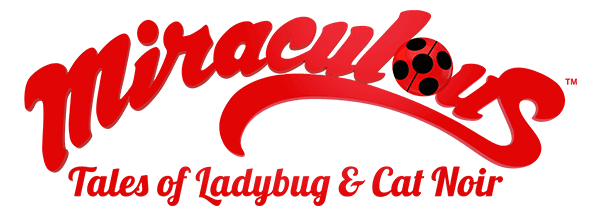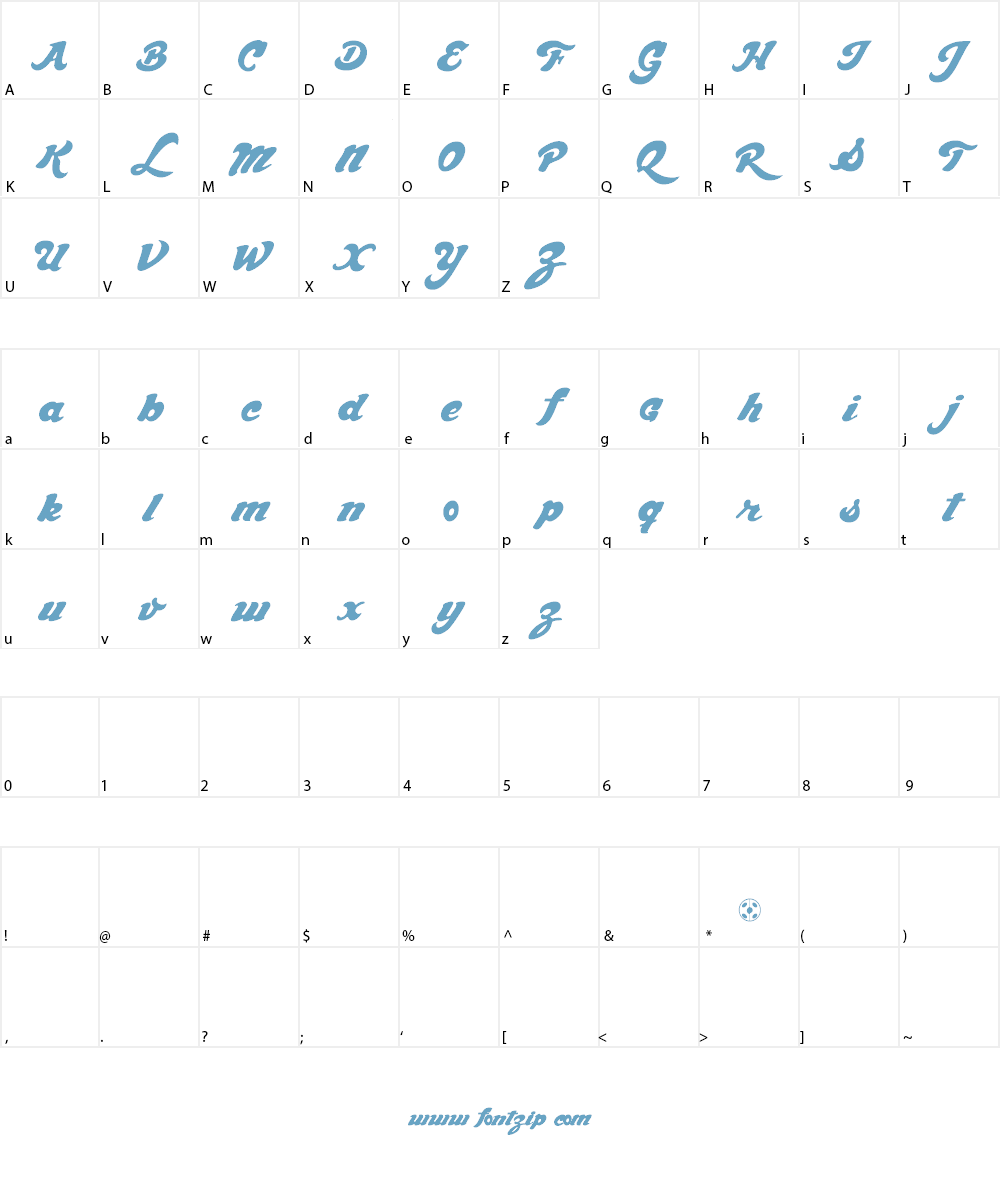
In which the first one is chocolate dealer font that used in miraculous. Kr ladybug true type font i used the above font for a ladybug lemonade label.
The text “tales of ladybug & cat noir” in the poster uses the font lobster, a lovely condensed script font designed by pablo impallari, and the “miraculous” part of the logo seems to be chocolate dealer by billy argel.
Miraculous ladybug font type. In this way, if you have some future. Complete family of 6 fonts: Lms london bugs true type font.
Download (zip 18.1 kb) add to favourites report this font. And it actually matches what kagami said in the episode. There are basically two fonts are used for the logo of ladybug.
Tales of ladybug cat noir french. Lady bug luv true type font. The beautiful textual style is comparable with numerous different textual styles.
The other ladybug on there are the ladybug dings true type font (captial n). The miraculous seems to be a font as well although i think its probably. There are basically two fonts are used for the logo of ladybug.
An indonesian text style foundry seniors studio took charge for structuring and discharging this content textual style just because. The word “miraculous” has drawn with chocolate dealer font while the word “tales of ladybug & cat noir” is design with lobster font. No promotional or commercial use allowed.
The lobster font was created by pabloimpallari and chocolate dealer font was created by billy argel. Click to find the best 9 free fonts in the ladybugs style. By fontstudio lab 5797 views, 1701 downloads.
You can follow the link above to download miraculous ladybug font. If you didn’t know, this font is used for the tales of ladybug & cat noir part of the logo. Gracias lo he usado, el texto “tales of ladybug & cat noir” que aparece en el póster en inglés utiliza la fuente lobster, una adorable fuente script condensada diseñada por pablo impallari
By installing or using this font, you are hereby agree to this font usage agreement: Miraculous ladybug what the font? Ladybug font free download ladybug font is a very sweet and famous font these days.
Ladybug dings true type font. The word “miraculous” has drawn with chocolate dealer font while the word “tales of ladybug & cat noir” is design with lobster font. The text “tales of ladybug & cat noir” in the poster uses the font lobster, a lovely condensed script font designed by pablo.
Make connections between events and information very quickly, and confidently proceed based on the patterns they see. Ladybug script font is a brush typeface that is famous because of its slick surface. Ladybug italic true type font i used the above font for my ladybug picnic sign.
It has 121 characters and. Commercial license available at my website: The word “miraculous” has drawn with chocolate dealer font while the word “tales of ladybug & cat noir” is design with lobster font.
Tales of ladybug & cat noir (french: Lms ladybug true type font. See life as full of possibilities.
Find this pin and more on creativetoonstv by creativetoons tv. Miraculous, les aventures de ladybug et chat noir; Miraculous ladybug font free font.
There are two typefaces are used for the logo of ladybug. As should be evident in the letter map pictures we embedded into this post. Miraculous ladybug wiki is a fandom tv community.
The series features two parisian teenagers who transform into the superheroes ladybug and cat noir to protect the city from supervillains. You are requires a license for promotional or commercial use. Yup, marinette’s definitely an ab and kagami’s definitely an o.
While the second one is lobster font used in “tales of ladybug & cat noir”. Miraculous is a high quality christmas font. The text “tales of ladybug & cat noir” in the poster uses the font lobster, a lovely condensed script font designed by pablo.